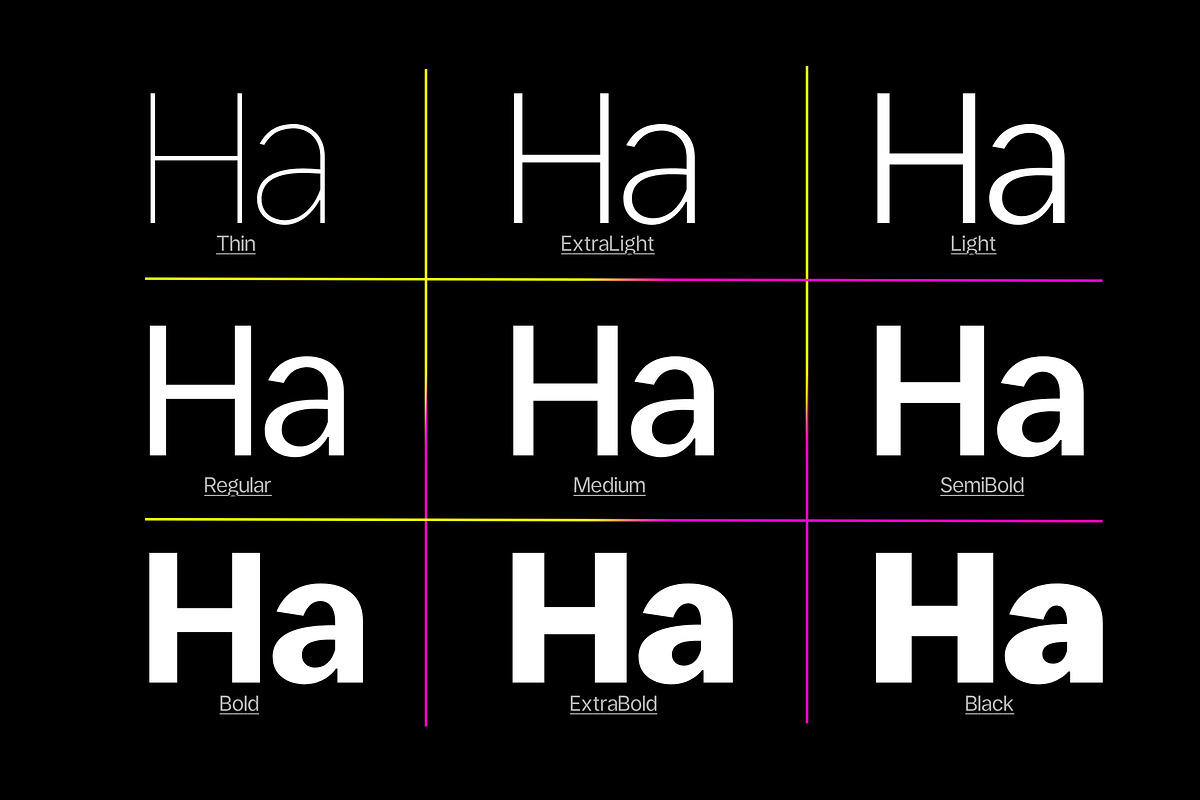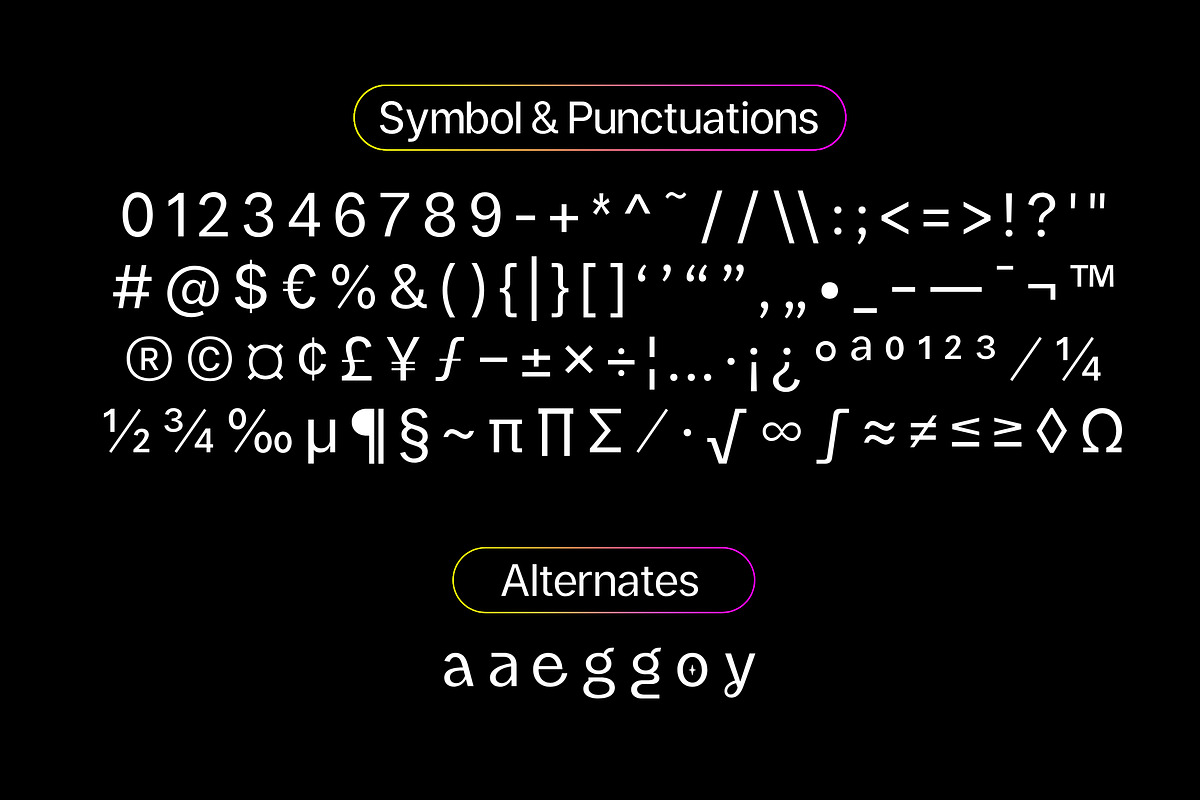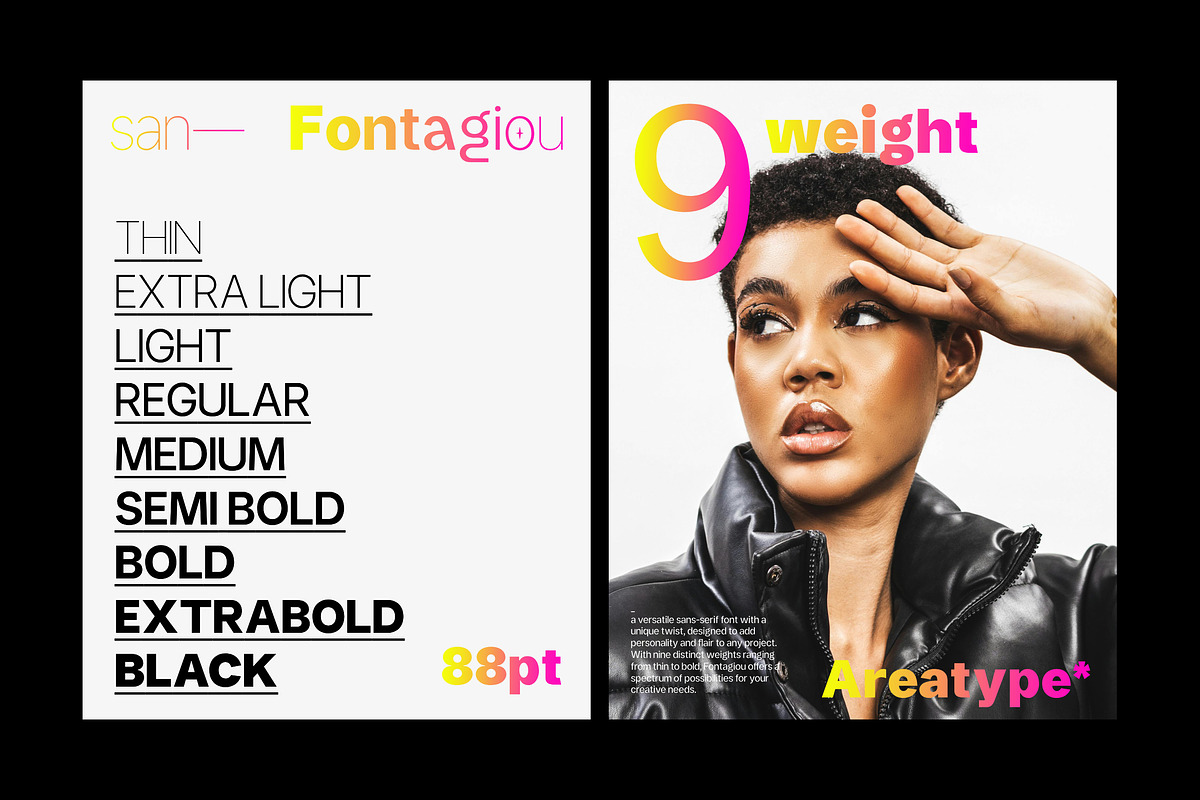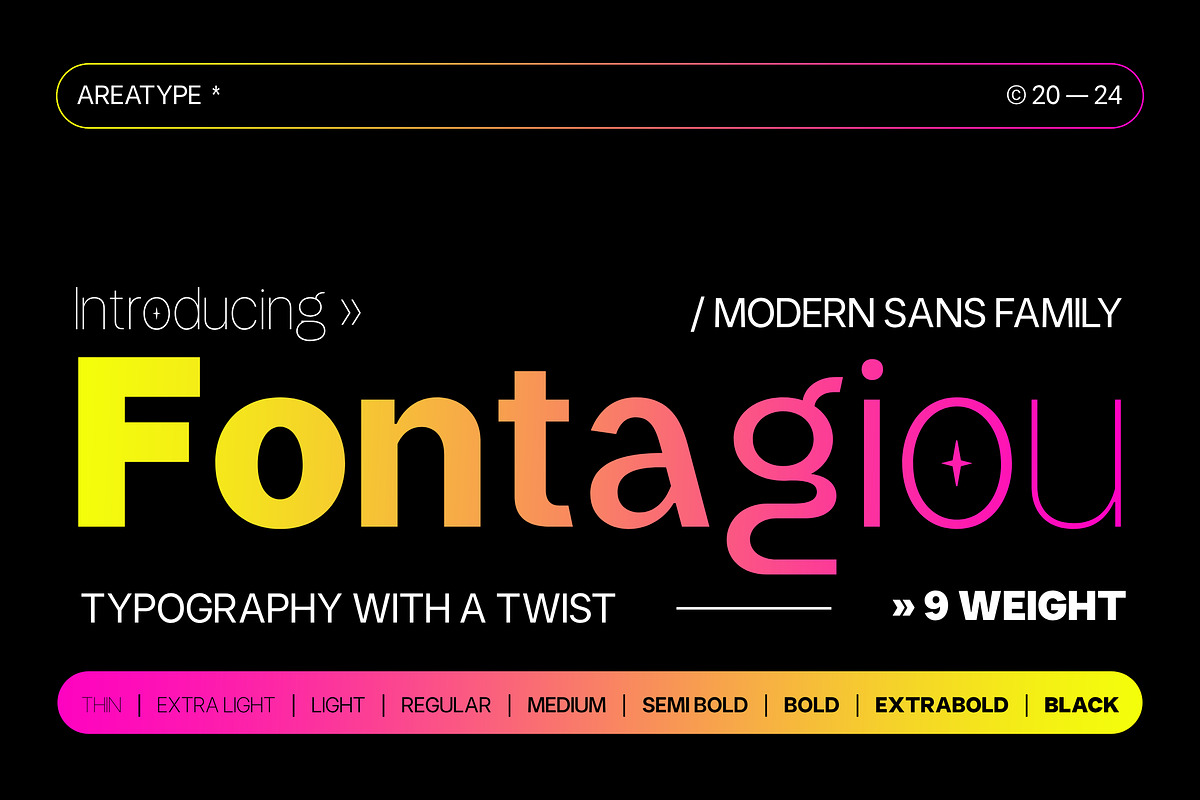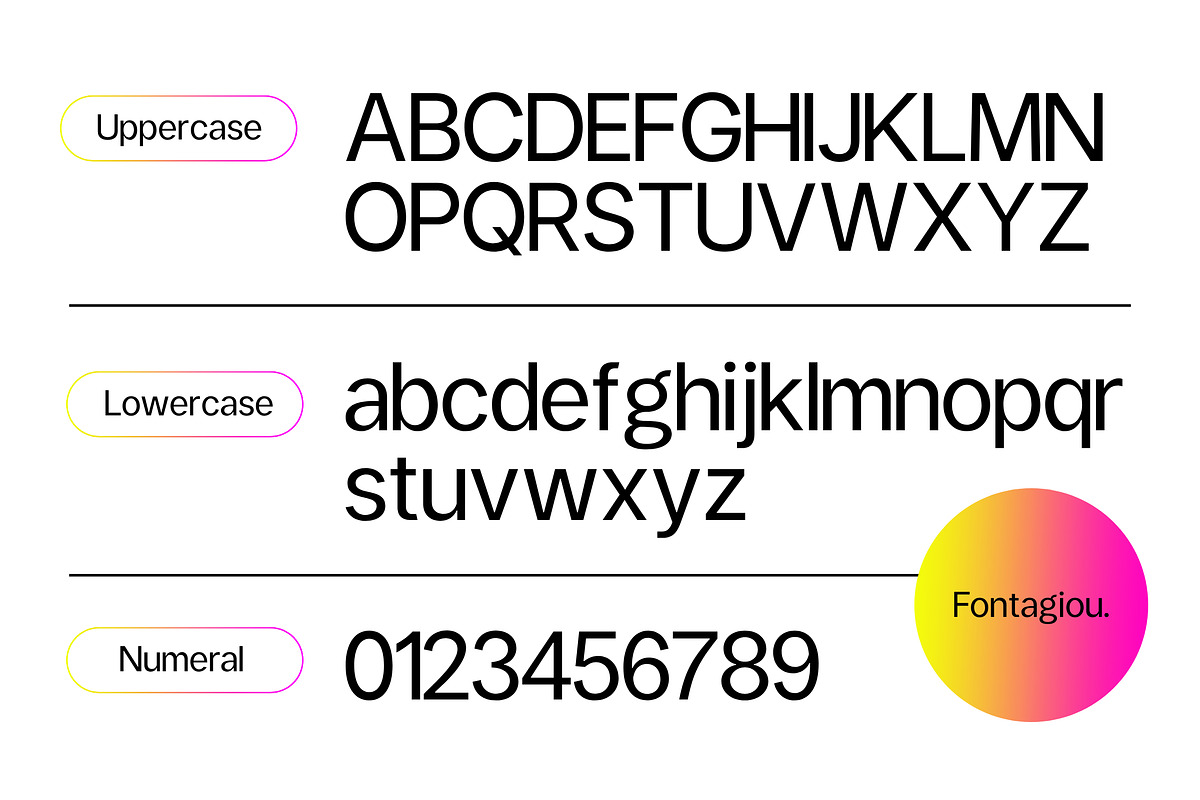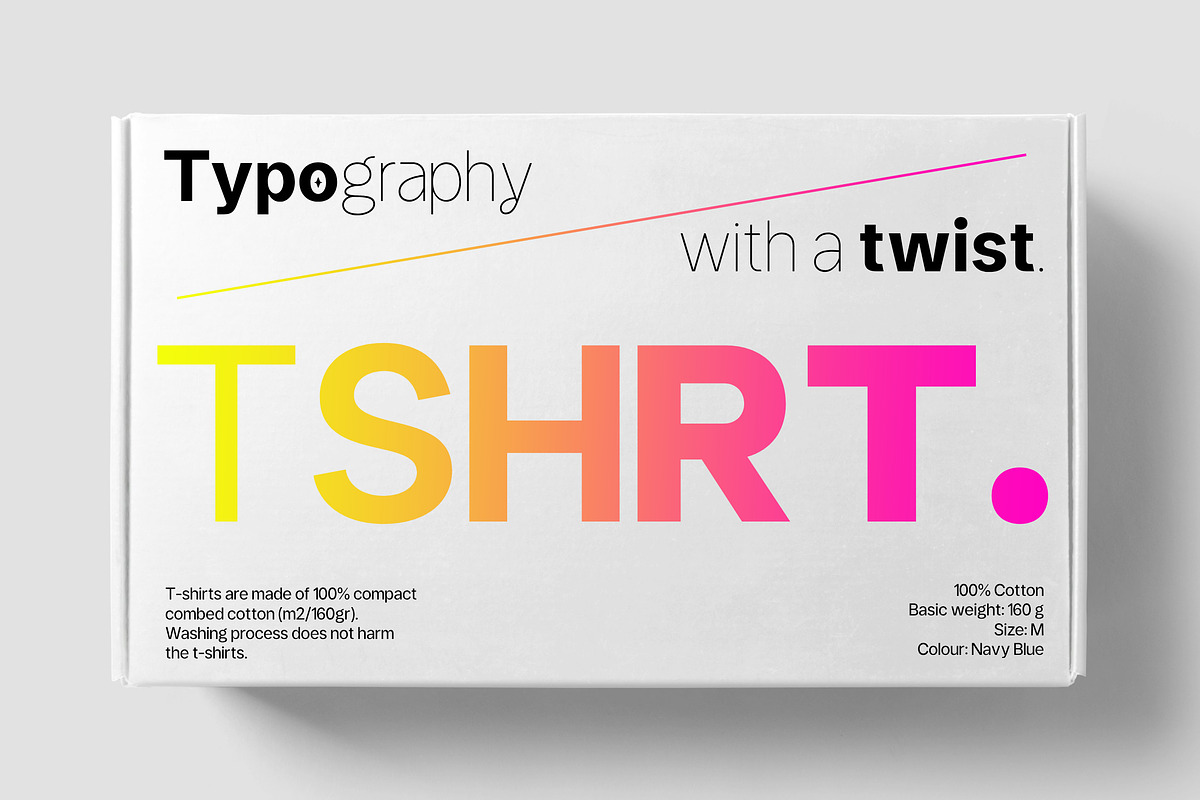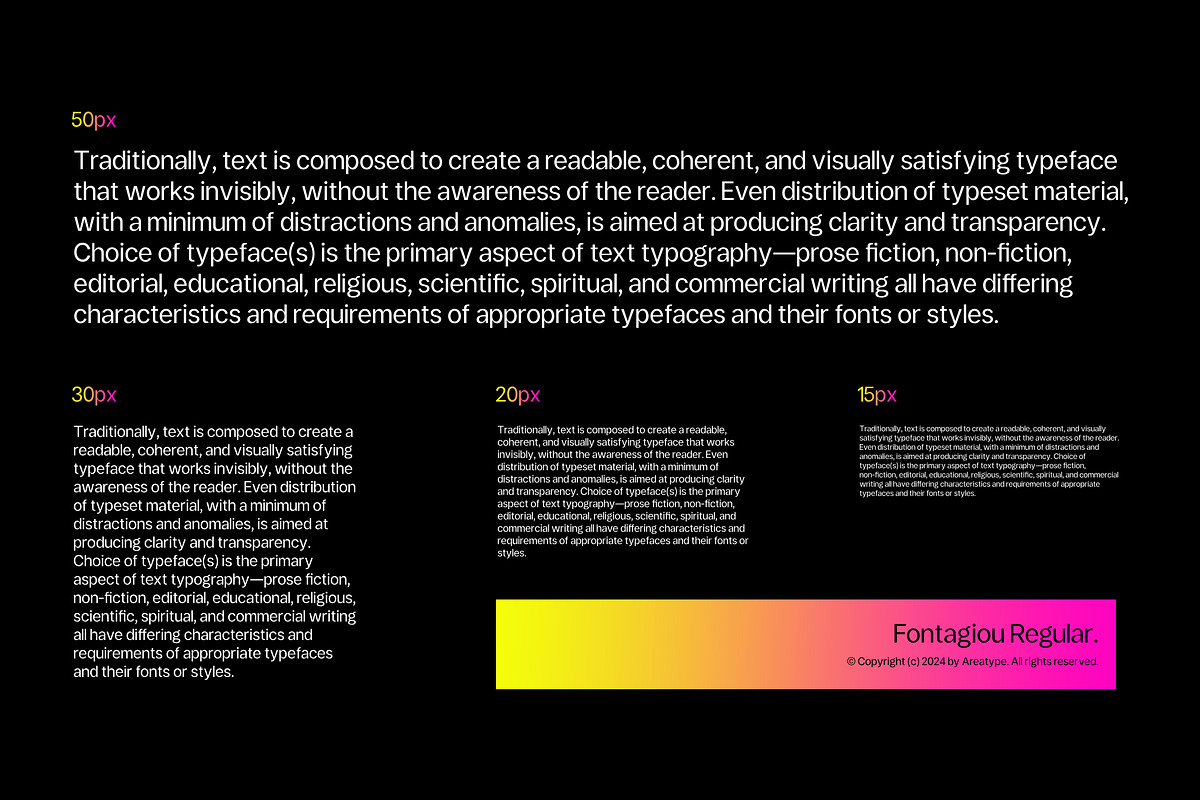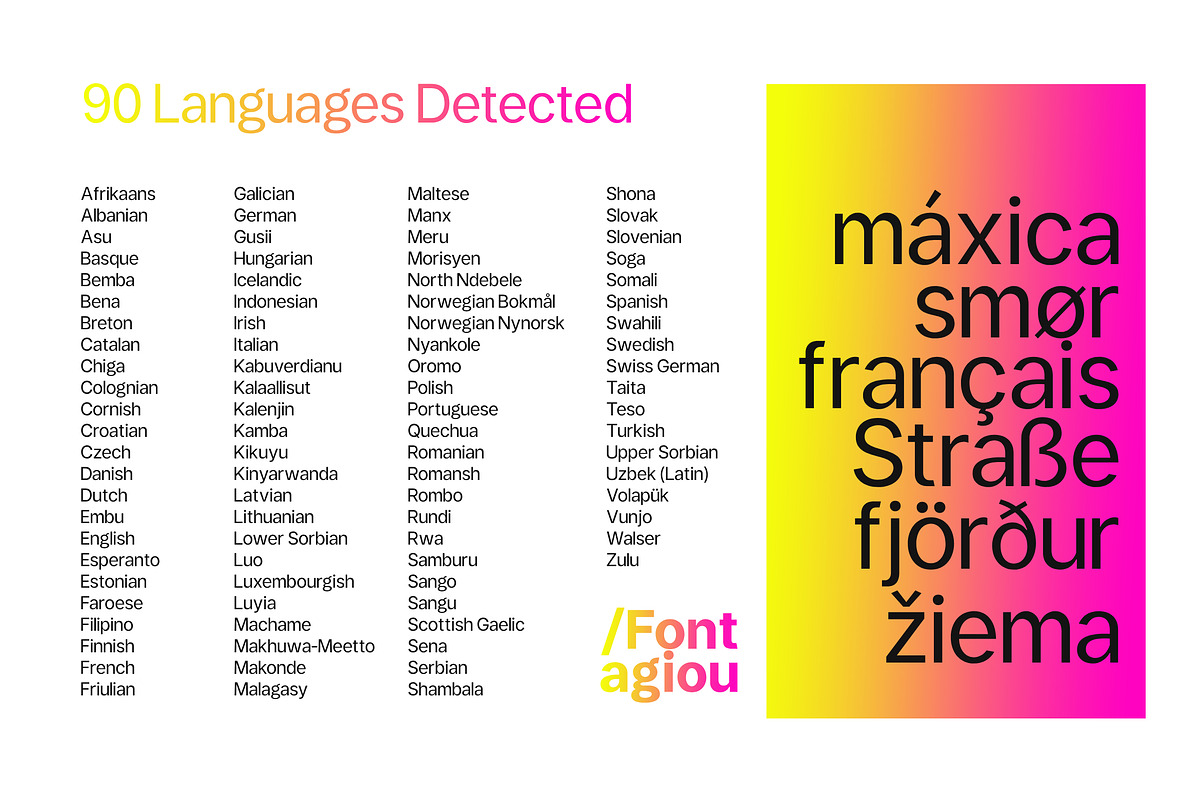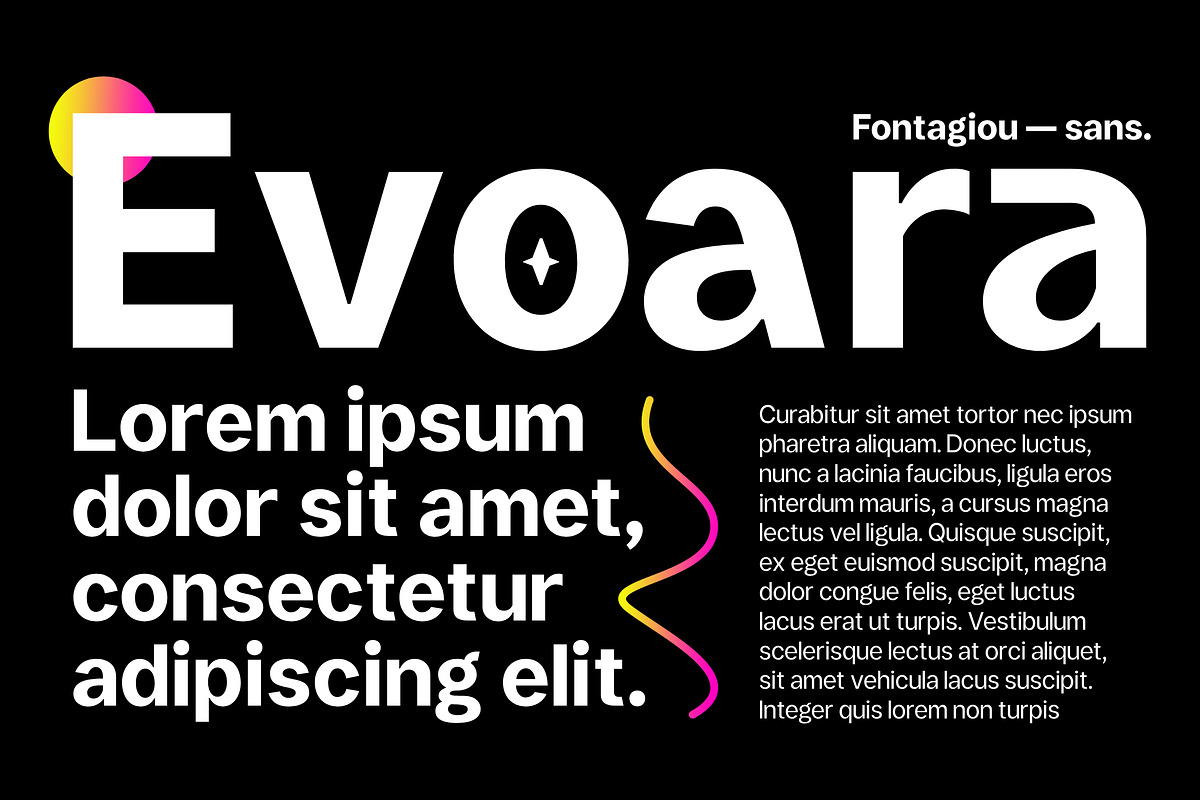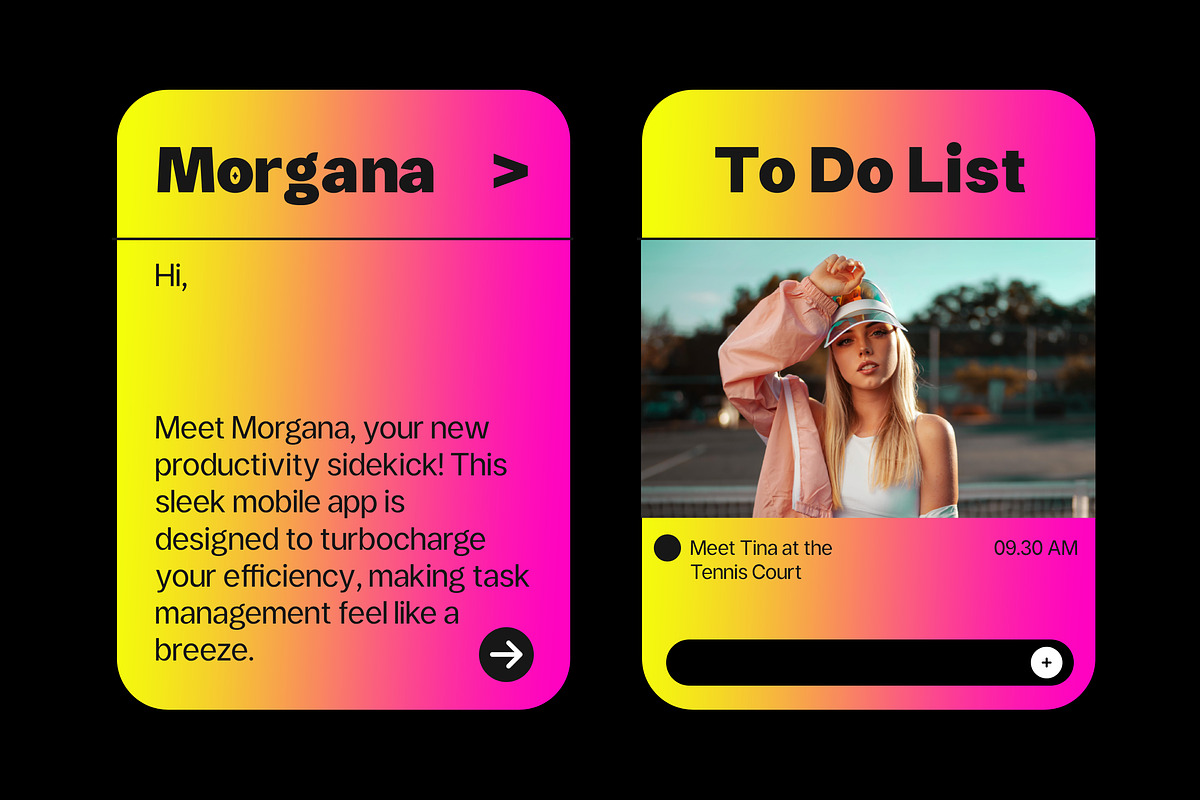
Fontagiou has a soft shape and makes it very suitable for text and display use.
Includes 9 Fonts, Ranging from light to black styles. OpenType features allow for the application of typography such as ligatures and multi-language support.
A great choice for branding, magazines, posters, advertising, printing, packaging, headlines, web design, etc.